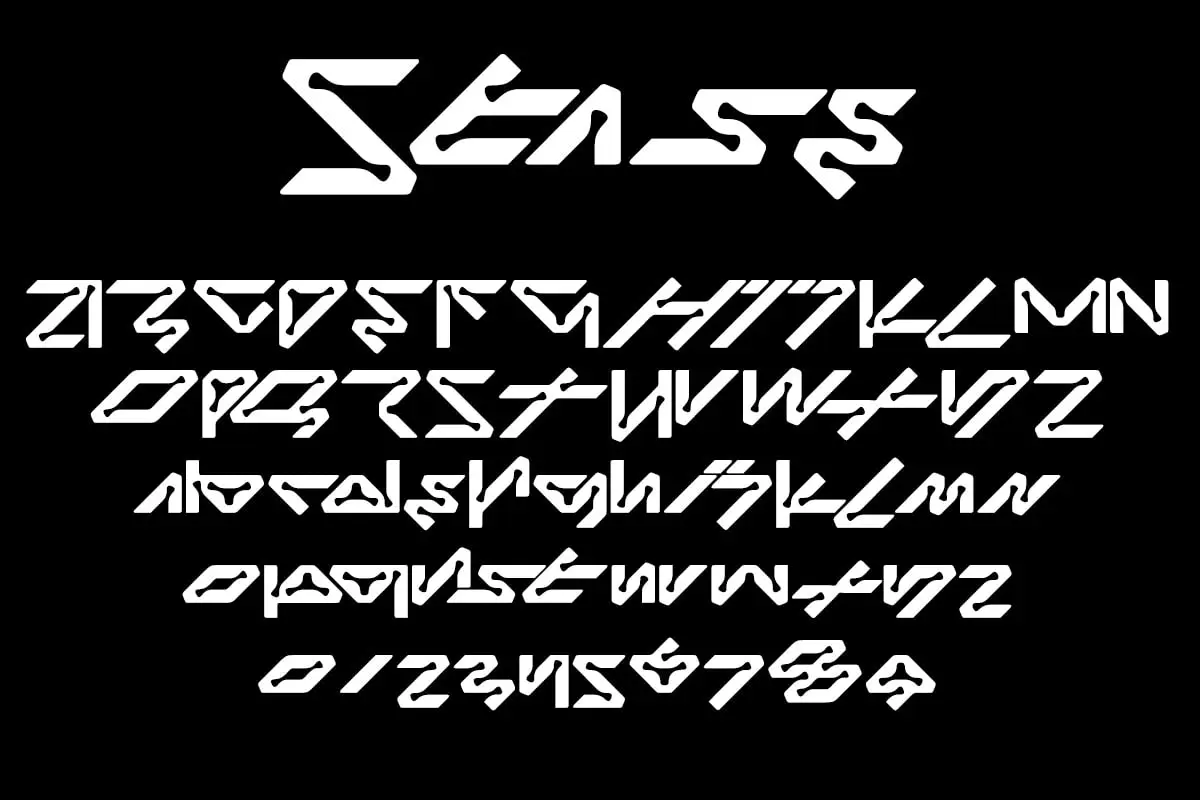
Introducing the Stase Font by Baptiste Bernazeau, a beautifully crafted typeface that brings elegance and modernity to your projects. This font features a clean and geometric design, making it perfect for a variety of applications.
- Ideal for branding projects, logos, and promotional materials.
- Great for both print and digital designs, ensuring versatility in usage.
- Use in UI design for a modern and clean aesthetic.